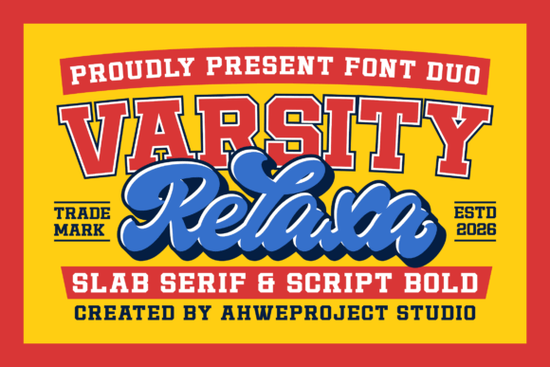
The Varsity Relaxa Font is a versatile and stylish choice for anyone looking to add a retro, athletic flair to their designs. This font duo combines a bold slab serif with a smooth script, making it ideal for projects that need both strength and elegance. Whether you're working on sports branding, logos, or social media graphics, the Varsity Relaxa Font can help you create something that stands out.
Designed with classic varsity and college aesthetics in mind, this font duo brings a sense of energy and nostalgia to any project. The strong, slab serif typeface gives a bold, confident look, while the script version adds a touch of handwritten charm. Together, they create a dynamic visual contrast that works well in a variety of design contexts.
What Makes Varsity Relaxa Font Unique?
The Varsity Relaxa Font is more than just a combination of two typefaces it’s a tool that helps designers express a specific mood and style. The slab serif offers a solid, structured look that’s perfect for headlines and logos, while the script version adds a personal, creative touch. This balance makes the font duo suitable for both formal and casual projects.
One of the standout features of this font is its versatility. It can be used in a wide range of applications, from apparel and merchandise to packaging and posters. Its retro vibe makes it especially popular among small businesses and print-on-demand sellers who want to create eye-catching designs without spending too much time on typography.
Best Uses for Varsity Relaxa Font
If you're looking for a font that can handle both bold statements and delicate details, the Varsity Relaxa Font is an excellent option. Here are some common use cases:
- Logos and Branding: The combination of slab serif and script makes it great for creating memorable brand identities.
- Social Media Graphics: Use it to make your posts stand out with a fresh, energetic look.
- Apparel and Merchandise: Ideal for t-shirts, mugs, and other products that need a strong visual impact.
- Posters and Banners: Perfect for sports events, school campaigns, or promotional materials.
Whether you're designing for a local business or creating custom items for sale, this font can help you achieve a professional and stylish result.
How to Use Varsity Relaxa Font Effectively
Using the Varsity Relaxa Font doesn’t require advanced design skills. Start by experimenting with different combinations of the two typefaces. For example, use the slab serif for headings and the script for subheadings or captions. This approach creates a clear visual hierarchy while maintaining a cohesive style.
It's also helpful to pair the font with complementary colors and layouts. Since the font has a strong personality, it works best when balanced with simpler elements. Avoid overcomplicating your design let the font do the talking.
Remember, the goal is to create designs that are both functional and visually appealing. The Varsity Relaxa Font is a great tool for achieving that balance, especially if you’re targeting audiences who appreciate retro, athletic, or handmade styles.
By understanding how to use this font effectively, you can enhance your creative workflow and produce more engaging designs. Whether you're a designer, crafter, or small business owner, the Varsity Relaxa Font is worth adding to your toolkit.
As you continue to explore typography options, keep in mind that the right font can make a big difference in how your work is perceived. Don’t be afraid to experiment and find what works best for your style and goals.
Take a moment to review your current design projects and think about how the Varsity Relaxa Font could fit into them. You might be surprised by the results.